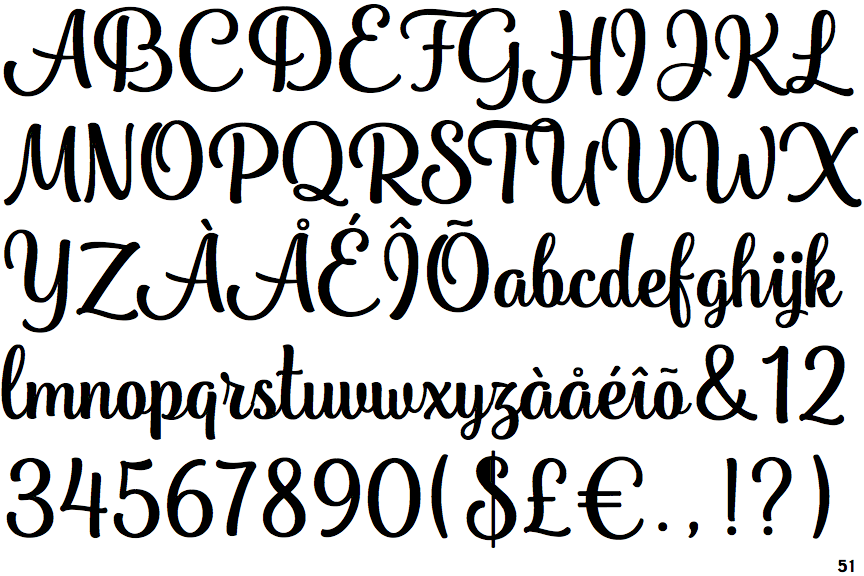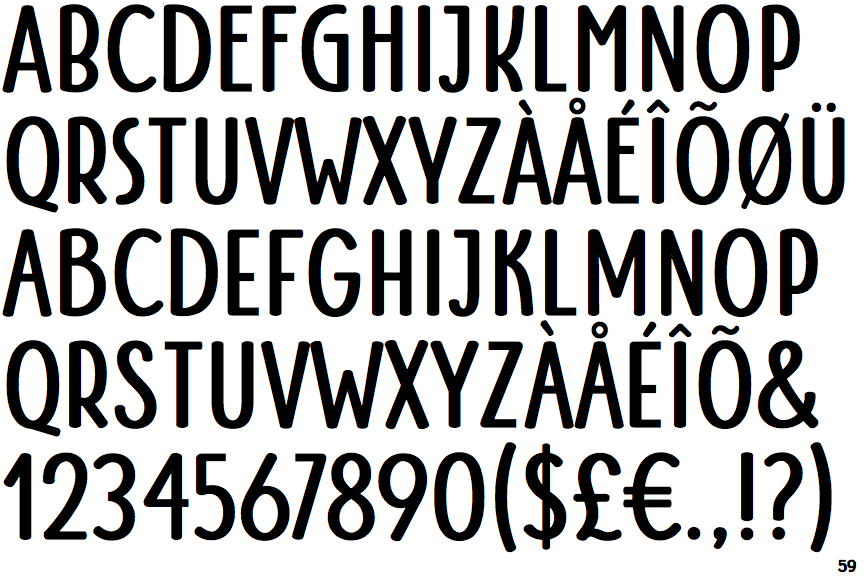
Photo Wall Regular Font Download . designed by veneta rangelova, photowall is a multiple classification font family. Regular), 386 characters in total. inspired by home decor, photowall is a versatile and elegant toolkit family of fifteen fonts with tons of personality. Photowall is a casual, connecting script in four weights with lots of swashes, ligatures and alternates. examples and download link for the photowall font designed by veneta rangelova in 2016. Photowall is a casual, connecting script in four weights with lots of swashes, ligatures and alternates. Learn more about its features, similar fonts, and font pairing. — inspired by home decor, photowall is a versatile and elegant toolkit family of fifteen fonts with tons of. buy & download photowall regular, a font by deartype.
— inspired by home decor, photowall is a versatile and elegant toolkit family of fifteen fonts with tons of. designed by veneta rangelova, photowall is a multiple classification font family. examples and download link for the photowall font designed by veneta rangelova in 2016. inspired by home decor, photowall is a versatile and elegant toolkit family of fifteen fonts with tons of personality. Photowall is a casual, connecting script in four weights with lots of swashes, ligatures and alternates. Photowall is a casual, connecting script in four weights with lots of swashes, ligatures and alternates. Regular), 386 characters in total. buy & download photowall regular, a font by deartype. Learn more about its features, similar fonts, and font pairing.
Photo Wall Regular Font Download Photowall is a casual, connecting script in four weights with lots of swashes, ligatures and alternates. Learn more about its features, similar fonts, and font pairing. examples and download link for the photowall font designed by veneta rangelova in 2016. — inspired by home decor, photowall is a versatile and elegant toolkit family of fifteen fonts with tons of. inspired by home decor, photowall is a versatile and elegant toolkit family of fifteen fonts with tons of personality. Photowall is a casual, connecting script in four weights with lots of swashes, ligatures and alternates. designed by veneta rangelova, photowall is a multiple classification font family. buy & download photowall regular, a font by deartype. Photowall is a casual, connecting script in four weights with lots of swashes, ligatures and alternates. Regular), 386 characters in total.
8 Free Professional Quality Fonts Photo Wall Regular Font Download Photowall is a casual, connecting script in four weights with lots of swashes, ligatures and alternates. Regular), 386 characters in total. buy & download photowall regular, a font by deartype. examples and download link for the photowall font designed by veneta rangelova in 2016. inspired by home decor, photowall is a versatile and elegant toolkit family of. Photo Wall Regular Font Download.
PhotoWall Font Family FREE Weight Behance Photo Wall Regular Font Download Regular), 386 characters in total. examples and download link for the photowall font designed by veneta rangelova in 2016. Learn more about its features, similar fonts, and font pairing. inspired by home decor, photowall is a versatile and elegant toolkit family of fifteen fonts with tons of personality. buy & download photowall regular, a font by deartype.. Photo Wall Regular Font Download.
Identifont Photo Wall Bold Photo Wall Regular Font Download Photowall is a casual, connecting script in four weights with lots of swashes, ligatures and alternates. designed by veneta rangelova, photowall is a multiple classification font family. inspired by home decor, photowall is a versatile and elegant toolkit family of fifteen fonts with tons of personality. Learn more about its features, similar fonts, and font pairing. buy. Photo Wall Regular Font Download.
Photowall Font Free Download Photo Wall Regular Font Download Learn more about its features, similar fonts, and font pairing. Photowall is a casual, connecting script in four weights with lots of swashes, ligatures and alternates. Photowall is a casual, connecting script in four weights with lots of swashes, ligatures and alternates. buy & download photowall regular, a font by deartype. — inspired by home decor, photowall is. Photo Wall Regular Font Download.
Download free PhotoWall Sans Shadow Regular font PhotoWallSansShadowRegular.otf Photo Wall Regular Font Download — inspired by home decor, photowall is a versatile and elegant toolkit family of fifteen fonts with tons of. Learn more about its features, similar fonts, and font pairing. inspired by home decor, photowall is a versatile and elegant toolkit family of fifteen fonts with tons of personality. designed by veneta rangelova, photowall is a multiple classification. Photo Wall Regular Font Download.
Pinyon Script Regular font Free fonts on Creazilla Photo Wall Regular Font Download Regular), 386 characters in total. Photowall is a casual, connecting script in four weights with lots of swashes, ligatures and alternates. inspired by home decor, photowall is a versatile and elegant toolkit family of fifteen fonts with tons of personality. Photowall is a casual, connecting script in four weights with lots of swashes, ligatures and alternates. examples and. Photo Wall Regular Font Download.
Modern Regular Download For Free, View Sample Text, Rating And More On Photo Wall Regular Font Download buy & download photowall regular, a font by deartype. inspired by home decor, photowall is a versatile and elegant toolkit family of fifteen fonts with tons of personality. Regular), 386 characters in total. Learn more about its features, similar fonts, and font pairing. examples and download link for the photowall font designed by veneta rangelova in 2016.. Photo Wall Regular Font Download.